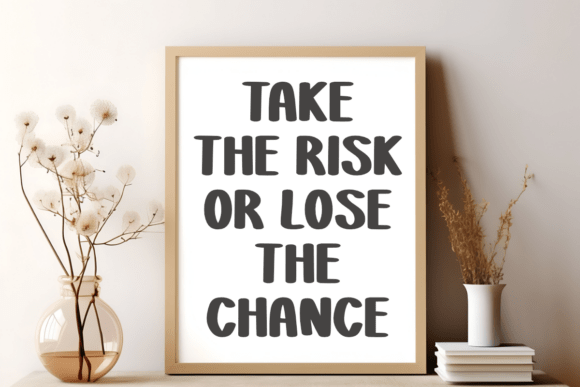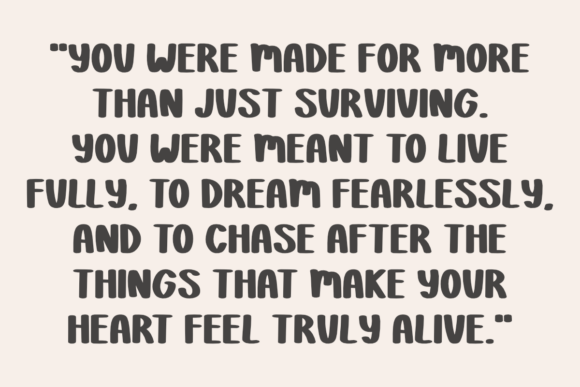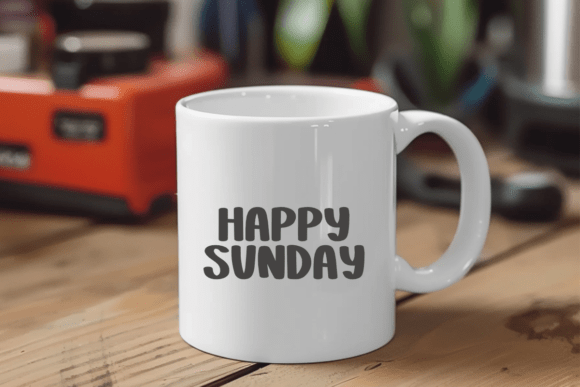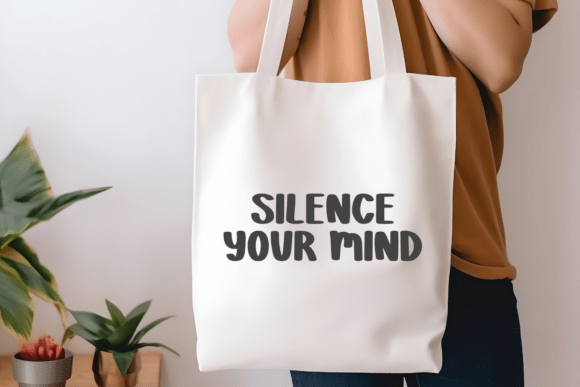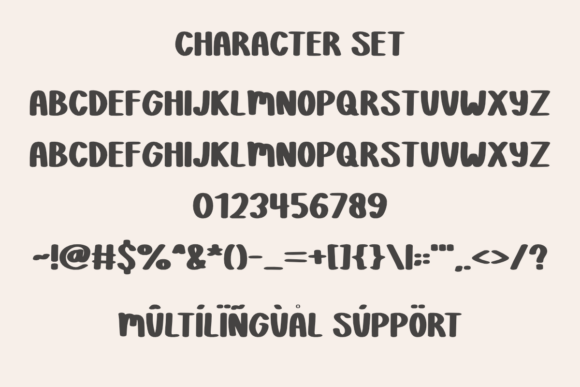
Introducing Happy Mama Font: The Ultimate Choice for Heartwarming Designs
Are you a designer or crafter looking for a font that exudes warmth and joy? Look no further than Happy Mama Font! This lovable and thick handwritten font is perfect for creating nursery prints, baby shower invitations, logos, and any other design that requires a touch of heartwarming charm.
The Characteristics of Happy Mama Font
Happy Mama Font is a unique and eye-catching font that boasts soft edges and a friendly style. Its bold and bubbly appearance makes it an ideal choice for designers who want to add a playful touch to their creations. The font’s thick and handwritten style gives it a personal and approachable feel, making it perfect for designs that require a human touch.
Uses of Happy Mama Font
Happy Mama Font is a versatile font that can be used in a variety of design projects. Some of the most popular uses of this font include:
- Nursery prints: Happy Mama Font is a popular choice for nursery prints, adding a touch of warmth and personality to baby’s first art.
- Baby shower invitations: The font’s playful and celebratory feel makes it perfect for baby shower invitations, setting the tone for a joyful and festive event.
- Logos: Happy Mama Font can be used to create unique and memorable logos for businesses, adding a touch of personality and whimsy to a brand’s identity.
- Stationery: The font’s friendly style makes it a great choice for stationery, including greeting cards, invitations, and thank-you notes.
Why Choose Happy Mama Font?
So, why choose Happy Mama Font over other fonts? Here are just a few reasons why designers and crafters love this font:
- Unique and eye-catching: Happy Mama Font is a one-of-a-kind font that is sure to grab attention and add a touch of personality to any design.
- Easy to read: Despite its playful style, Happy Mama Font is easy to read, making it perfect for designs that require a clear and legible font.
- Versatile: Happy Mama Font can be used in a variety of design projects, from nursery prints to logos and stationery.
- Adorable: Let’s face it – Happy Mama Font is just plain adorable! Its soft edges and friendly style make it a joy to use in any design project.
Tips for Using Happy Mama Font
Here are a few tips for getting the most out of Happy Mama Font:
- Use it with contrasting colors: Happy Mama Font looks best when paired with contrasting colors that make it stand out.
- Experiment with sizes: Don’t be afraid to experiment with different font sizes to add visual interest to your design.
- Pair it with other fonts: Happy Mama Font can be paired with other fonts to create a unique and visually appealing design.
In conclusion, Happy Mama Font is a lovable and versatile font that is perfect for designers and crafters who want to add a touch of heartwarming charm to their creations. Its soft edges, friendly style, and bold appearance make it a go-to choice for nursery prints, baby shower invitations, logos, and any other design that requires a playful and approachable feel. So why not give Happy Mama Font a try? With its unique and eye-catching style, it’s sure to bring joy and personality to any design project.